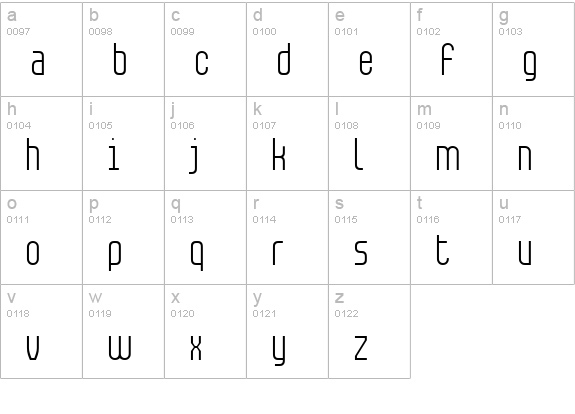
Perkeo Font Details
Perkeo uppercase A-Z preview Perkeo lowercase a-z preview Perkeo numbers 0-9 preview
Perkeo font is a beautifully crafted typeface that exudes elegance and sophistication. Its sleek, modern design makes it perfect for a wide range of design projects, from branding to editorial. With its clean lines and stylish curves, Perkeo font adds a touch of class to any project. The best part? Perkeo font is completely free to download at FontsMarket.com. This means you can elevate your designs without breaking the bank. Whether you're working on a logo, website, or print materials, Perkeo font is sure to impress with its timeless appeal. So why wait? Download Perkeo font today and take your designs to the next level with this versatile and stylish typeface.